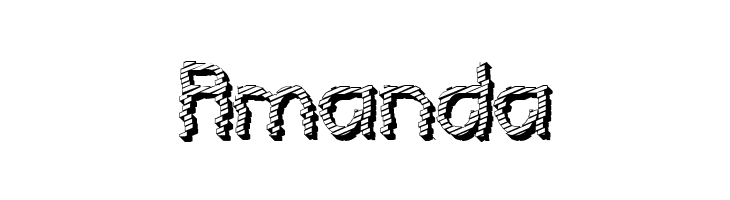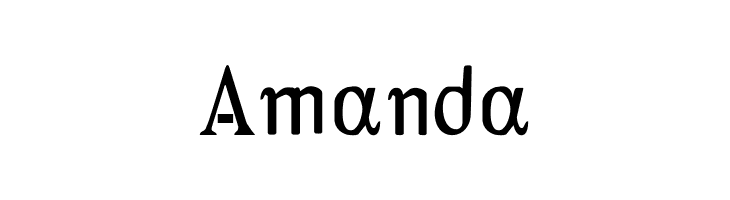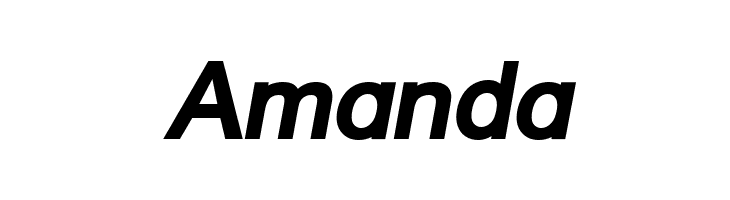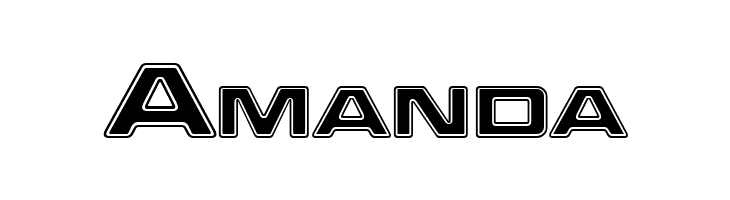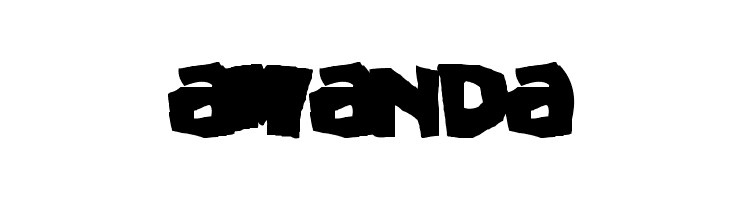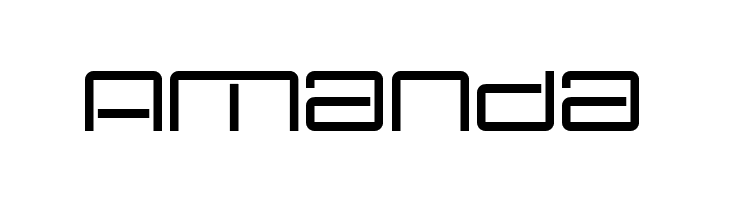
A bold, hand-drawn font with a rough, sliced texture.
A bold, playful handwritten font with thick, rounded strokes.
A bold, angular font with a futuristic and geometric style.
A modern, clean sans-serif font with uniform strokes and geometric influences.
A bold, oblique font with a futuristic, striped design.
A bold, playful font with rounded characters and a cartoonish outline.
A bold, textured font with a rugged, hand-drawn appearance.
A decorative and artistic font with a medieval-inspired style.
A bold, modern font with geometric lines and a sleek appearance.
A futuristic, bold font with geometric shapes and outlined characters.
A bold, decorative font with a puzzle-like, geometric design.
A playful and whimsical font with curly, irregular letterforms.
A decorative font with diagonal striped patterns, offering a modern and artistic look.
A playful, hand-drawn font with irregular and whimsical letterforms.
A bold, playful font with a hand-drawn comic book style.
A bold, geometric font with sharp, angular letterforms.
A modern, geometric font with a futuristic and minimalistic design.